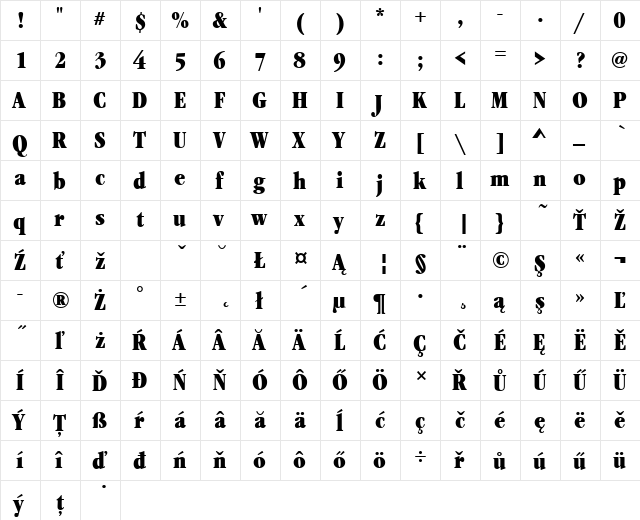
GaramondItcTEEUltCon Regular
GaramondItcTEEUltCon is a composed and adaptable typeface that performs quietly and consistently across a wide range of design contexts.